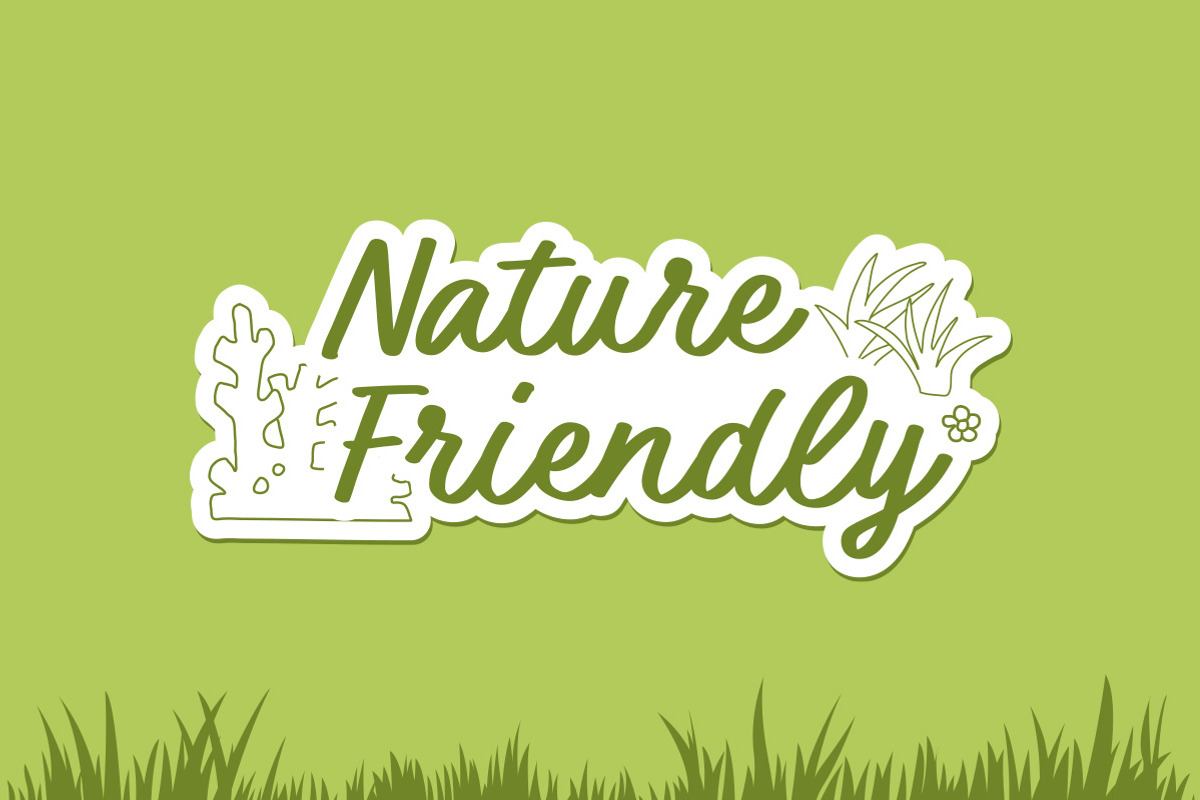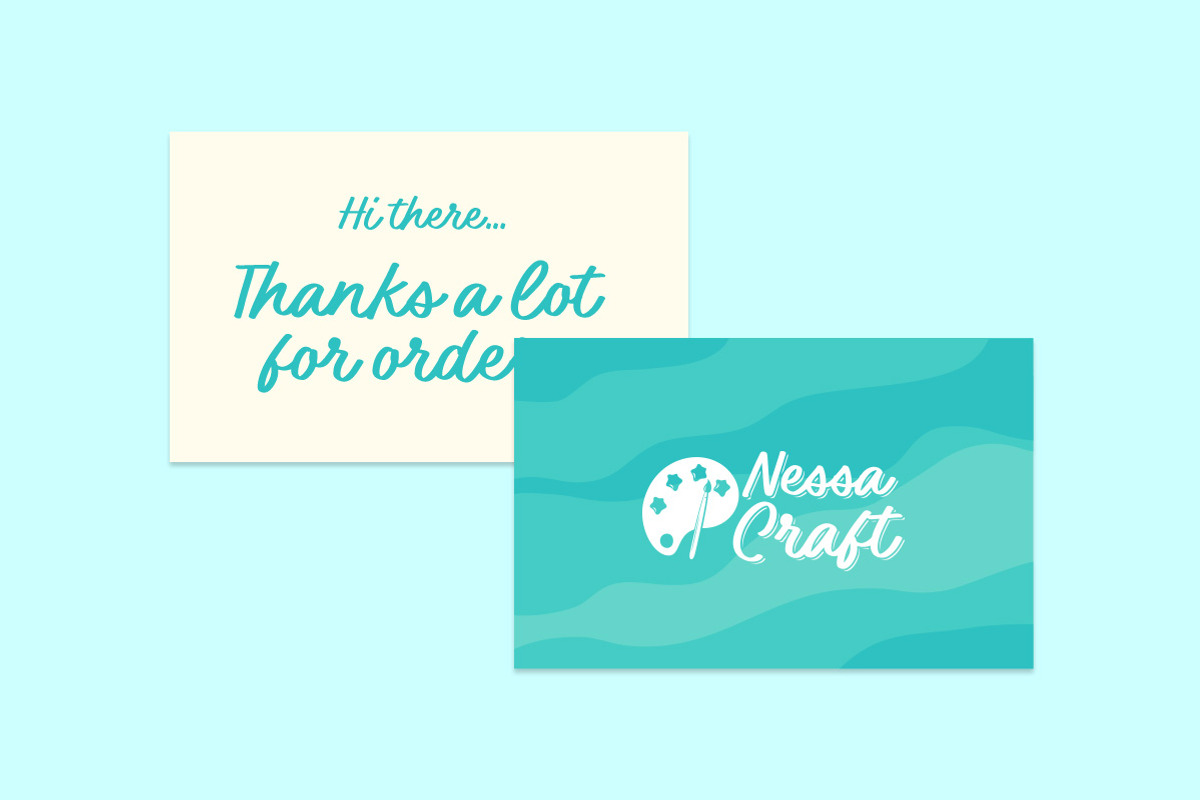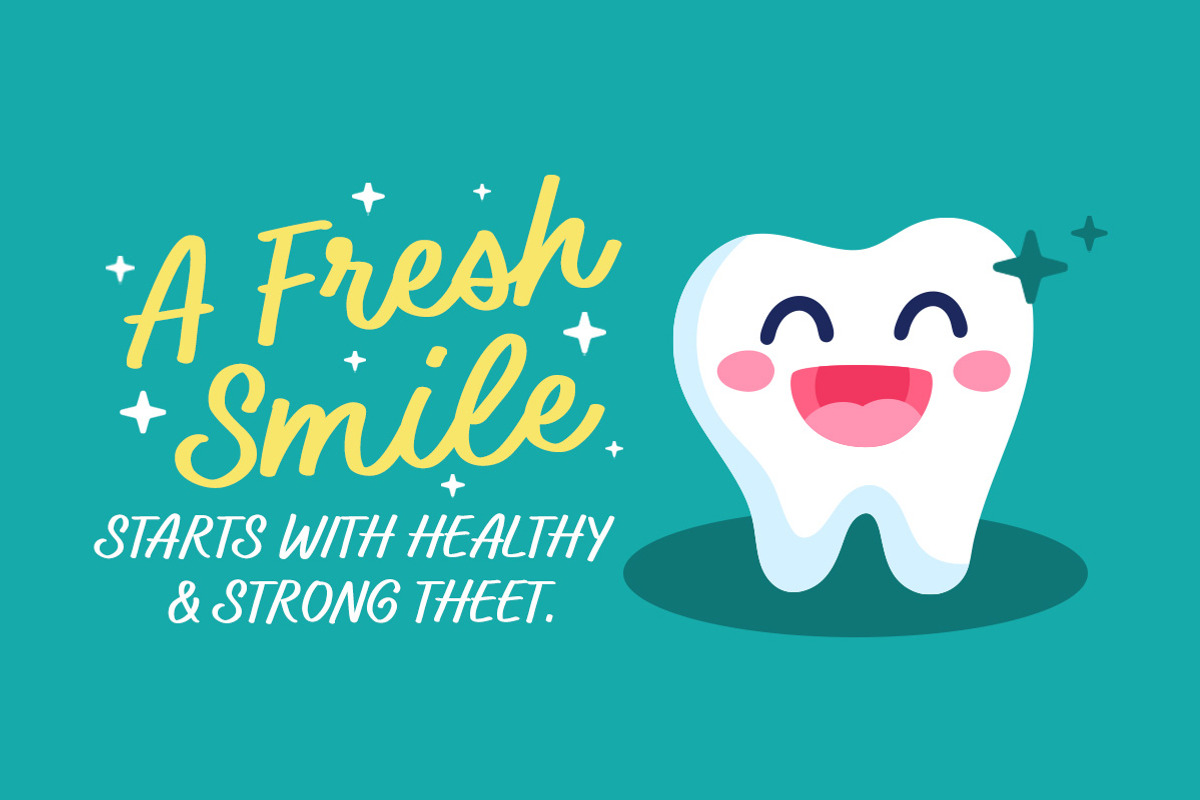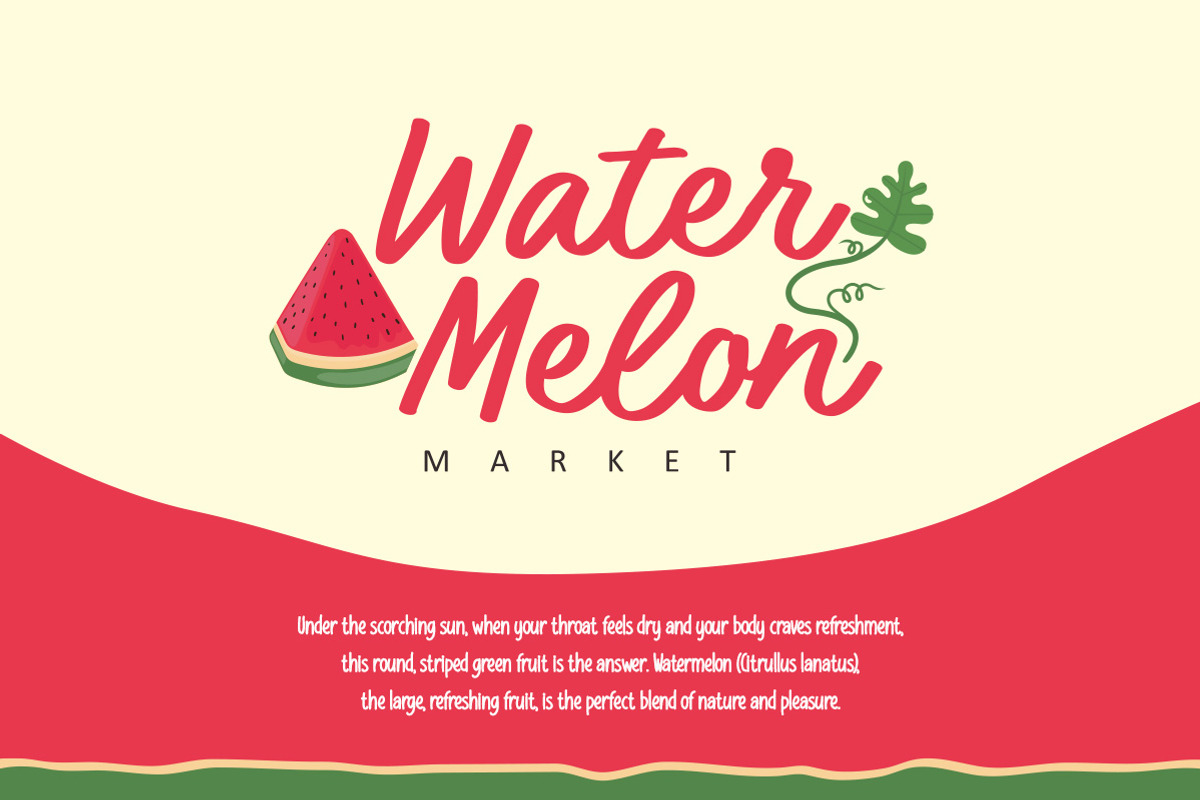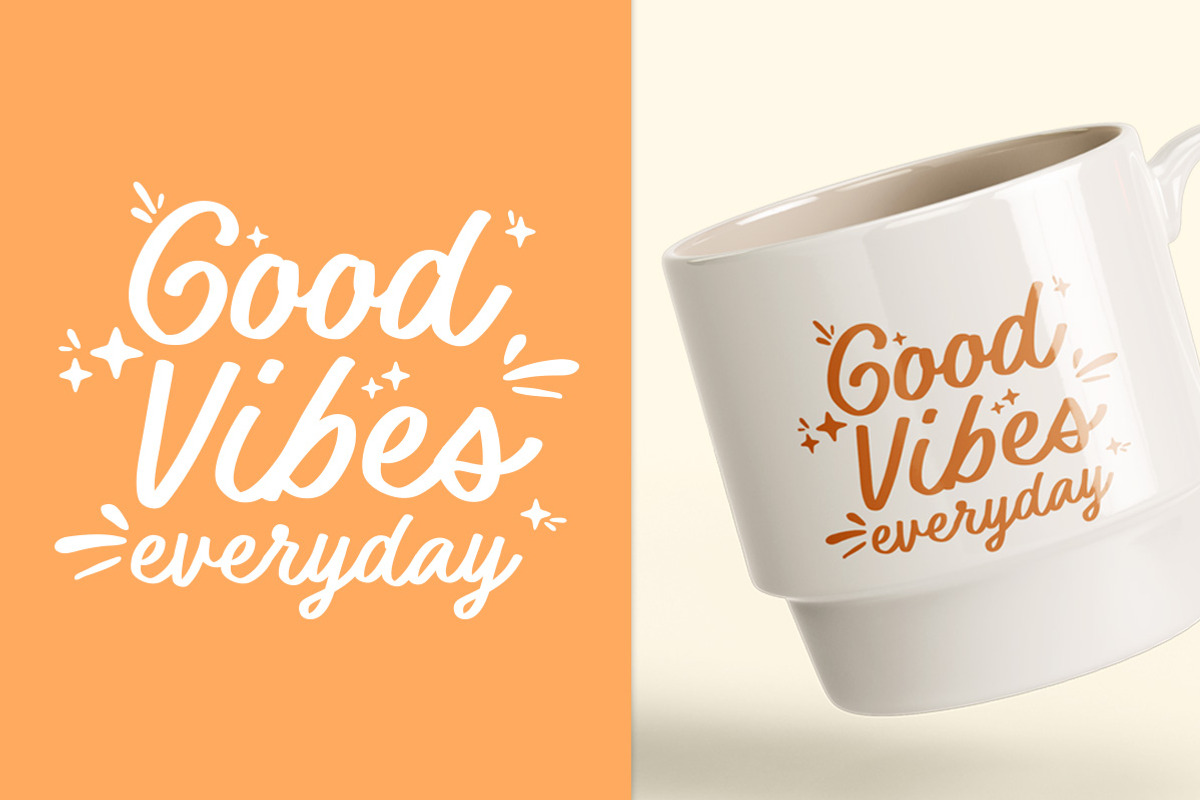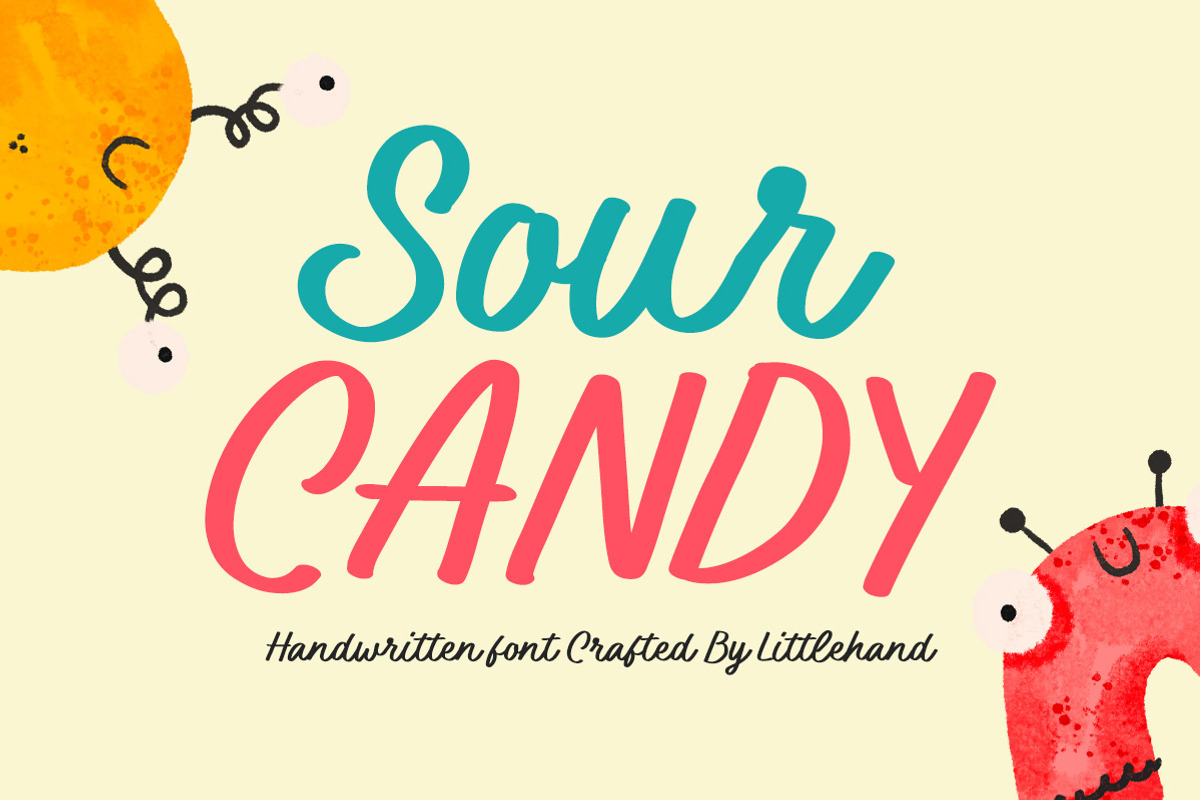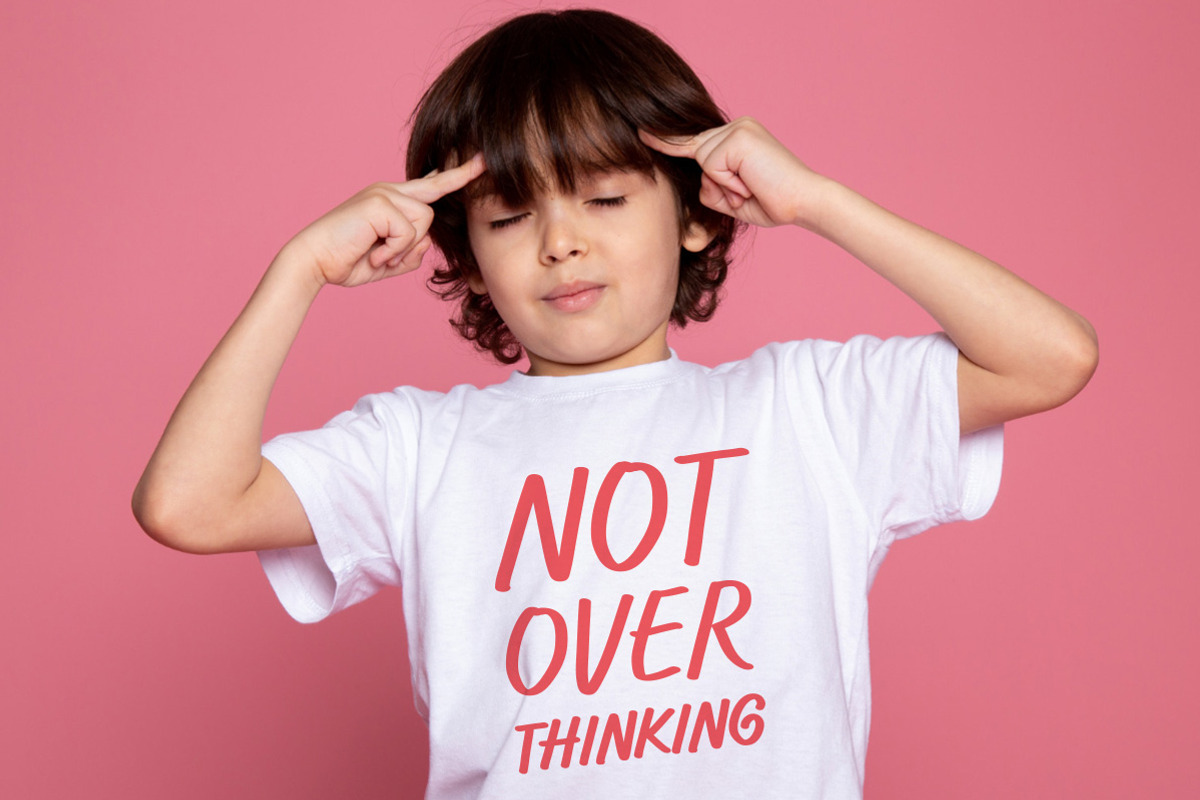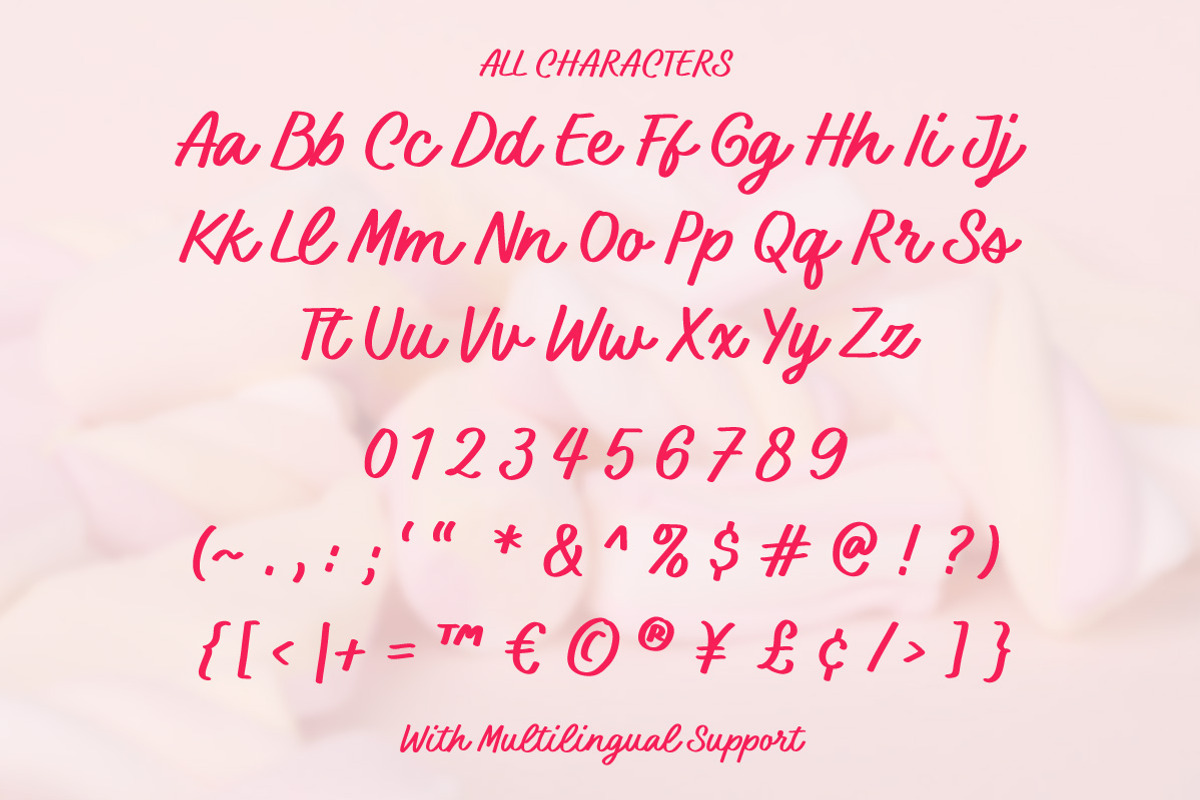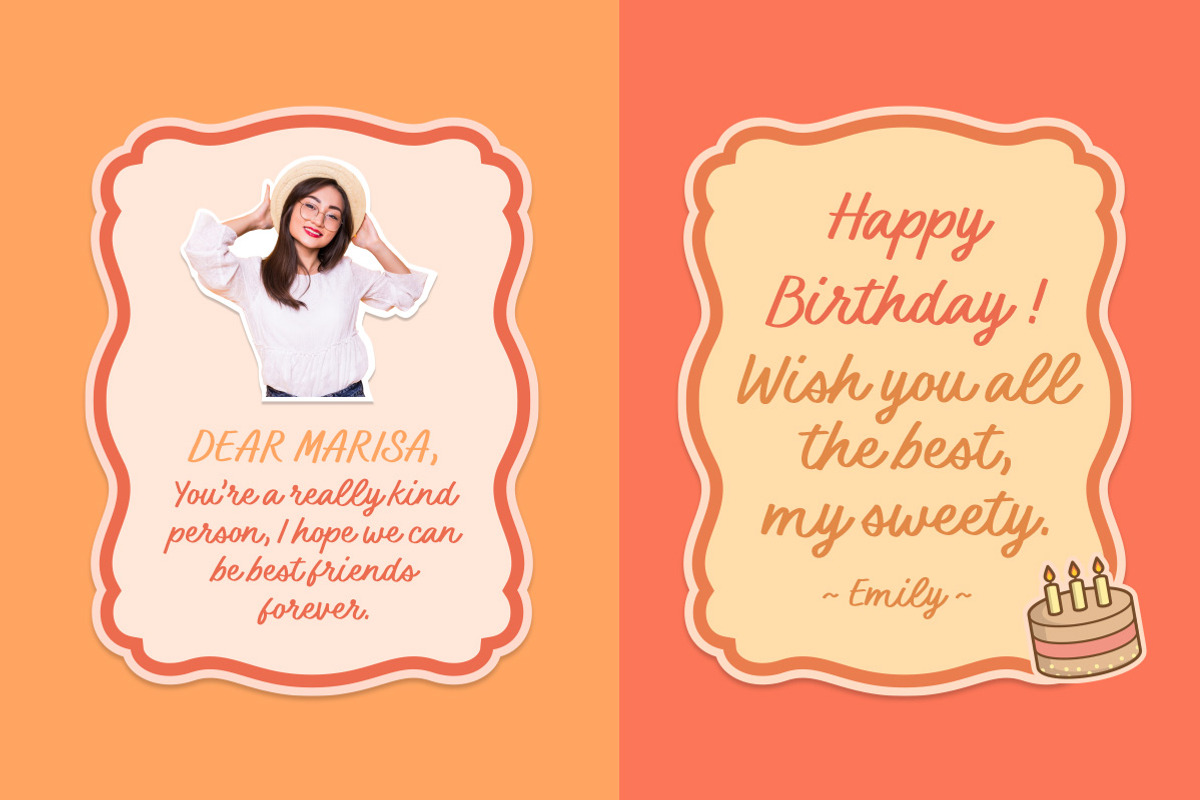
Sour Candy Handwriting
Sour Candy_ _feels bright, punchy, and full of sweet energy—like a quick sugar rush in typographic form. With its bouncy handwritten strokes, smooth curves, and slightly bold flow, this font brings a fun and playful vibe that instantly grabs attention. The letters feel lively and carefree, making every word pop with a cheerful, almost juicy look.